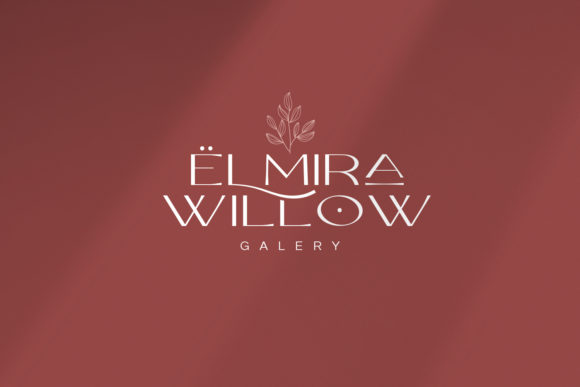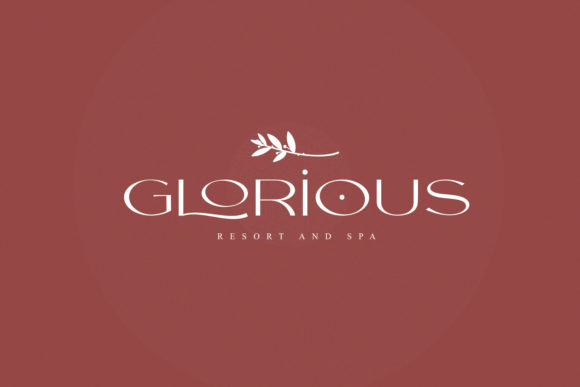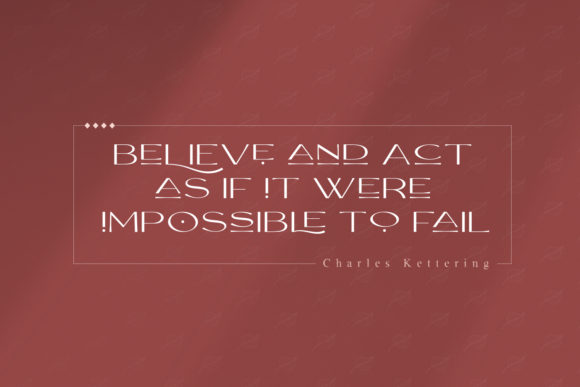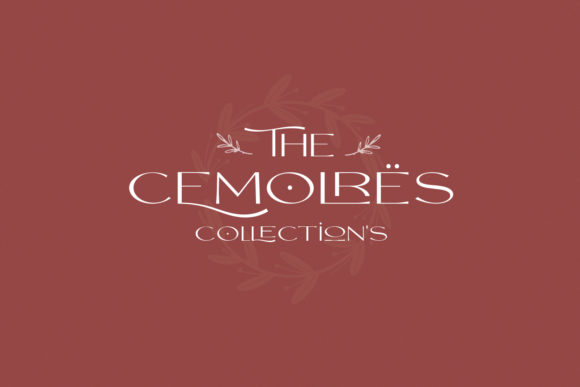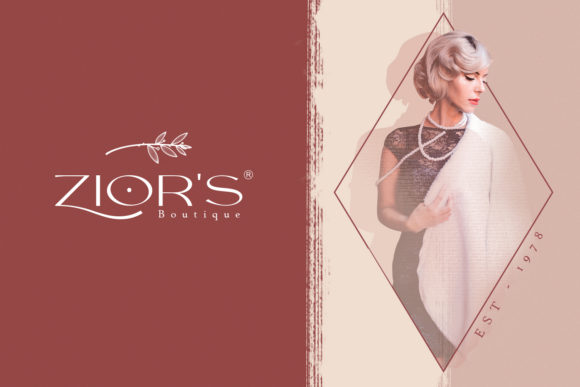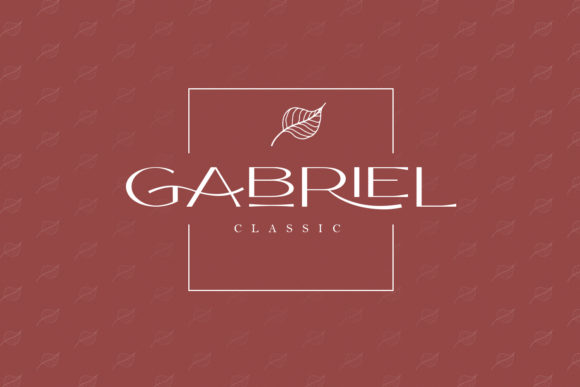
Introduction to Rollgates Victoria Font
Rollgates is an elegant and charming sans serif font that will turn any design idea into a true piece of art.
Get inspired by its unique charm .
Key Features of Rollgates Victoria Font
Why Choose Rollgates Victoria Font?
Rollgates Victoria Font offers exceptional quality and versatility, making it a valuable addition to your design toolkit. Whether you’re creating for personal projects or commercial use, Rollgates Victoria Font delivers professional results.